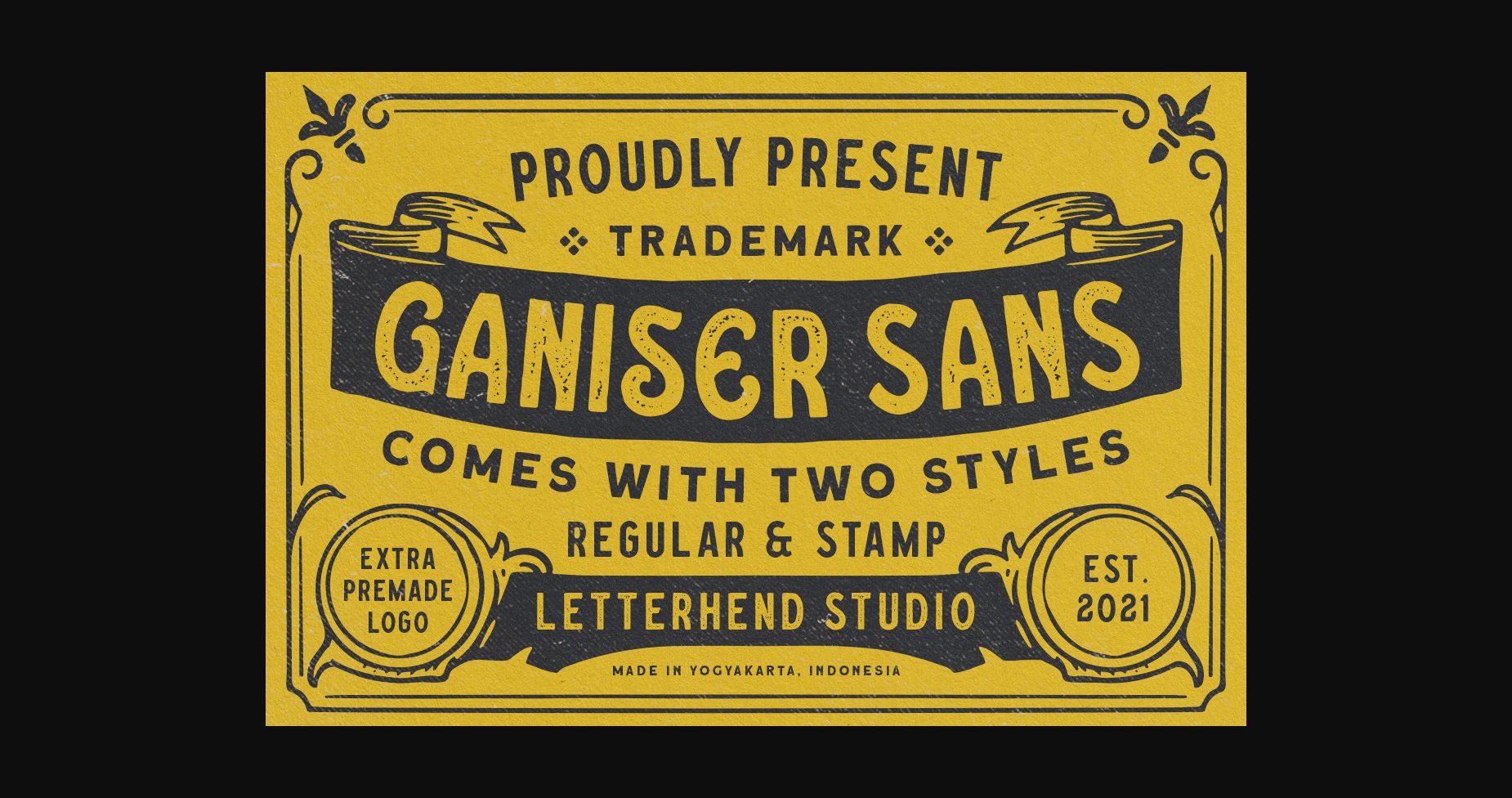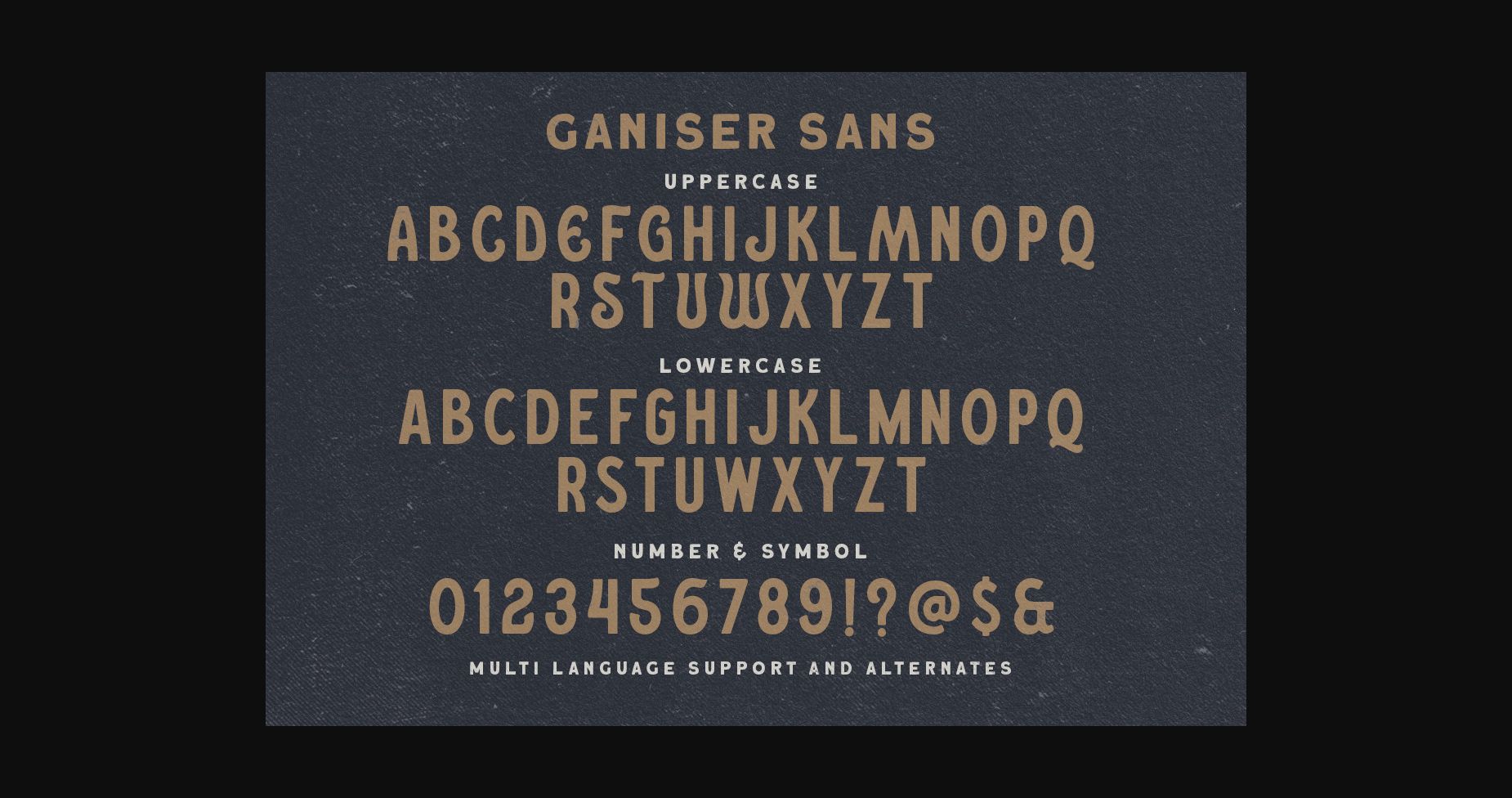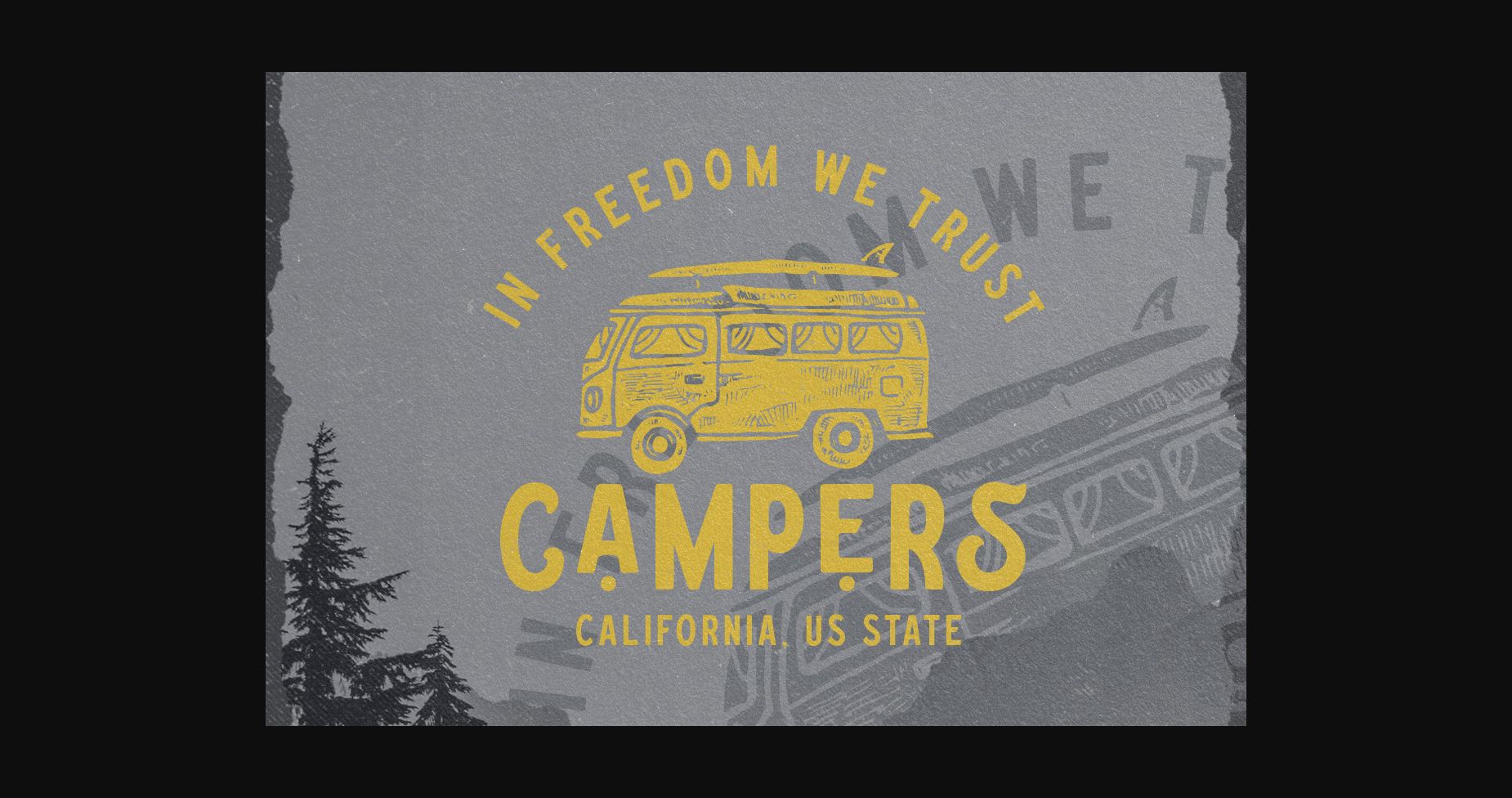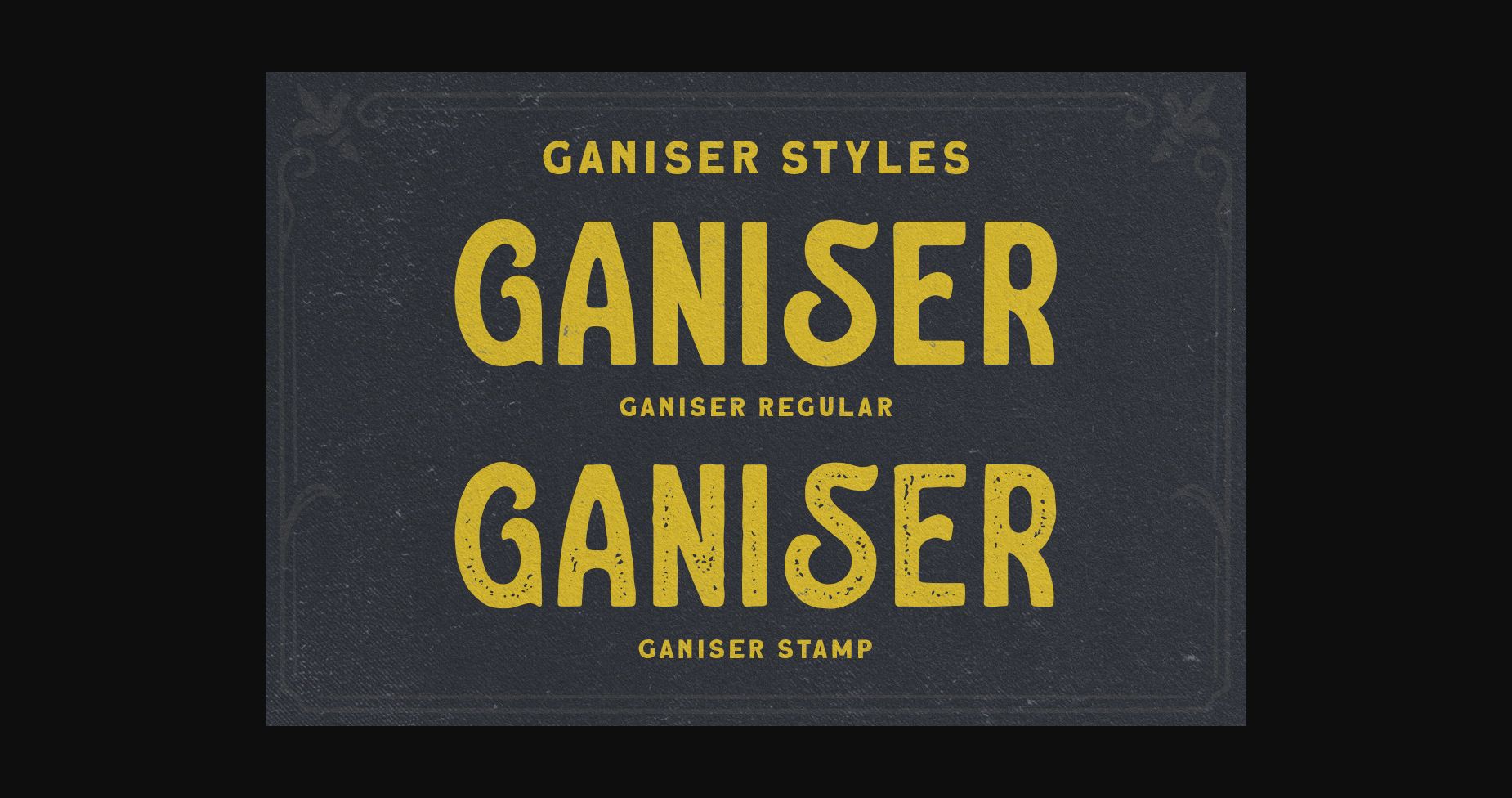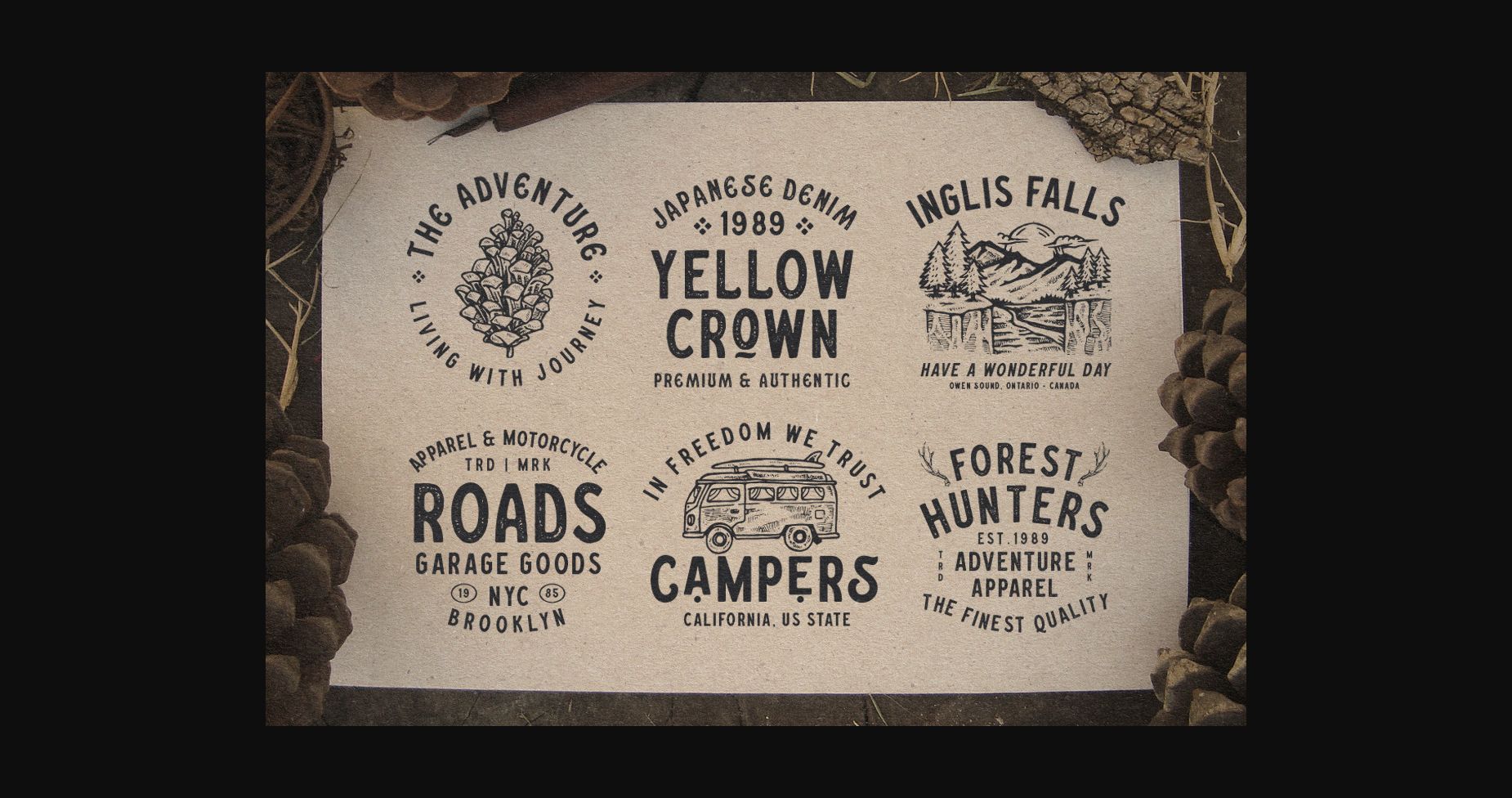
About Ganiser Sans Font
Ganiser Sans is a nostalgic sans serif typeface. Its unique look and strong characters make it the perfect choice for logos, invitations, labels, magazines, books, greeting/wedding cards, packaging, fashion, make-up, stationery, and any type of project with advertising purposes. Add this font to your favorite creative ideas, and notice how it makes them come alive!